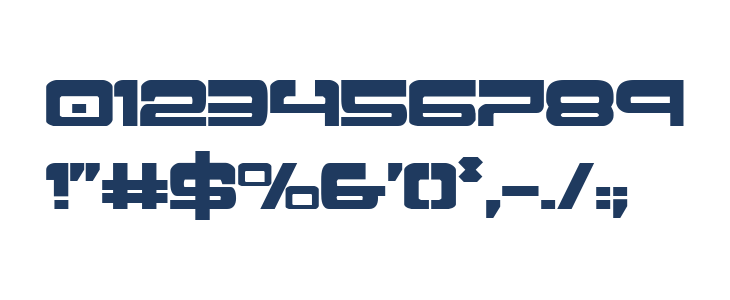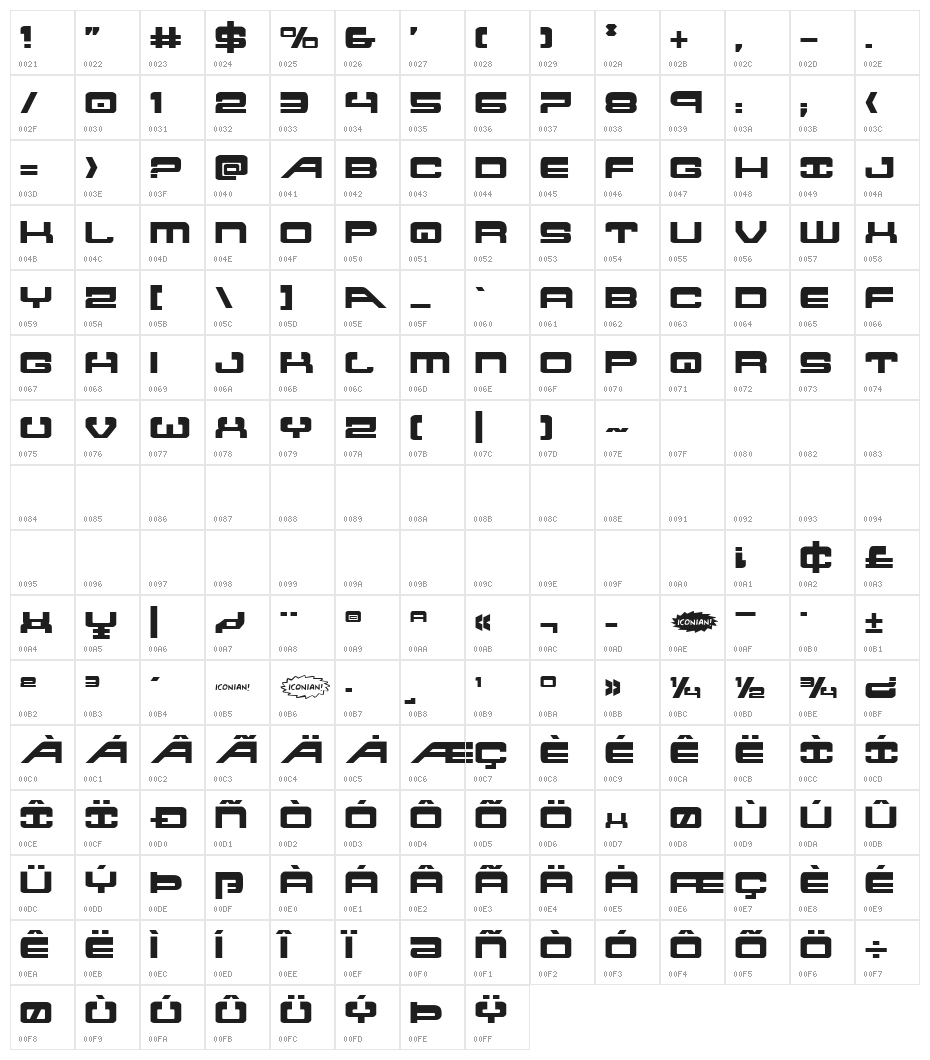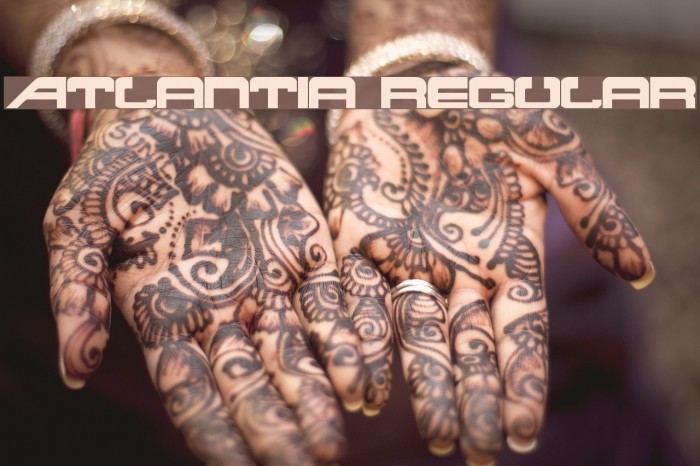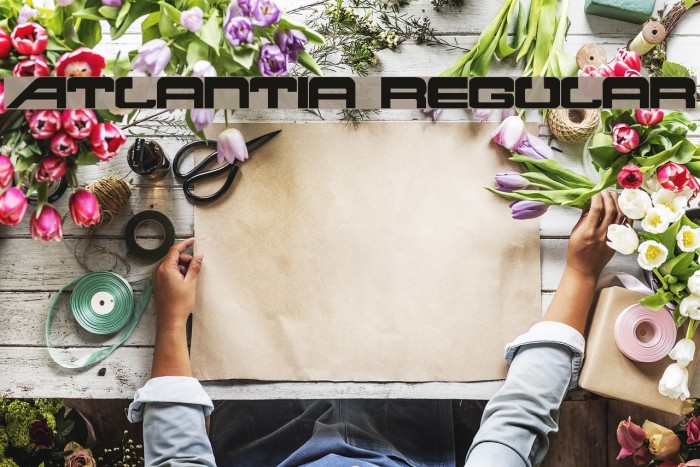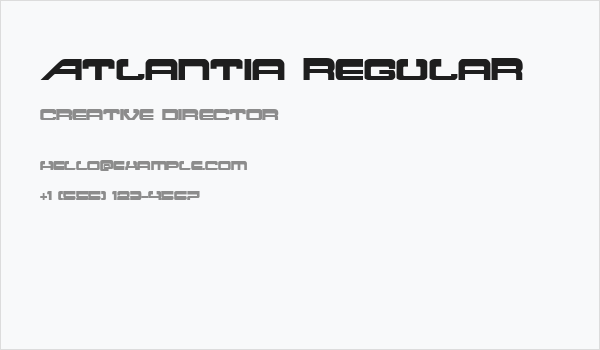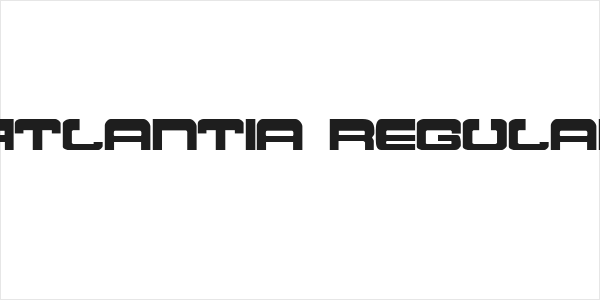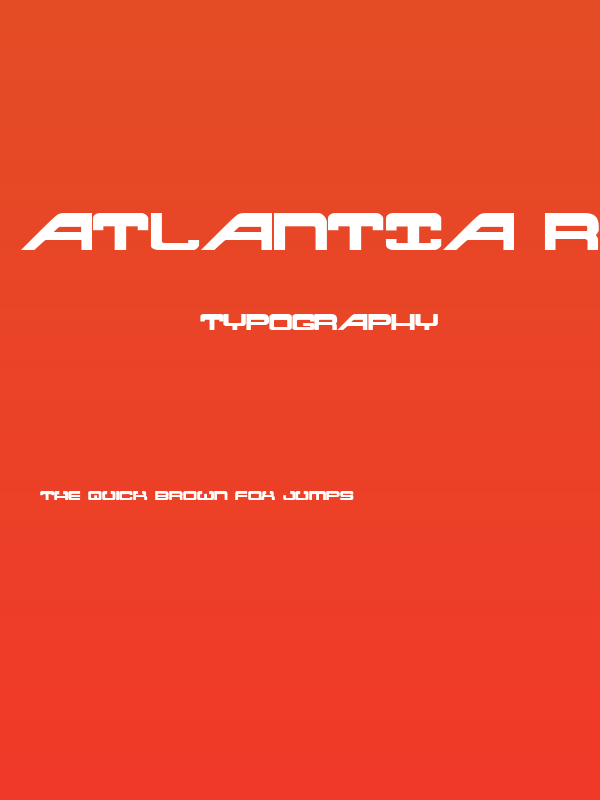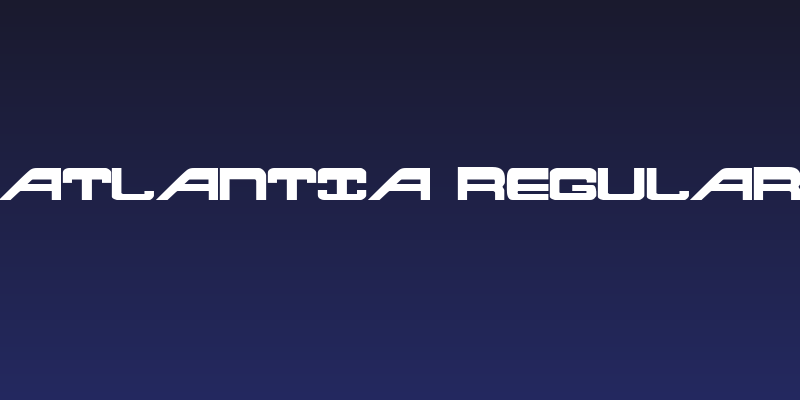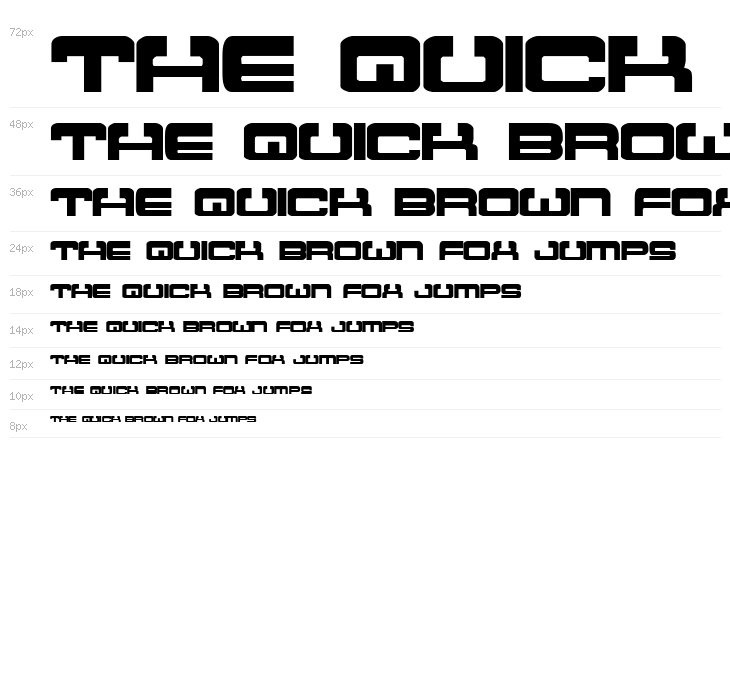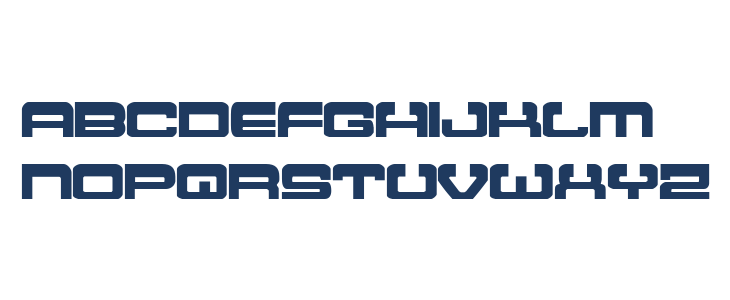
Atlantia Regular Font
Atlantia Regular Description
This font features a futuristic and geometric design, characterized by its bold and angular letterforms. The uppercase and lowercase letters maintain a consistent width, creating a uniform appearance. The characters are crafted with sharp edges and a distinct block-like structure, giving it a modern and tech-inspired look. The numbers and special characters follow the same design principles, ensuring a cohesive style throughout. The font's unique aesthetic makes it suitable for projects that require a contemporary and innovative feel.
| Proposed Projects | Ideal for technology branding, sci-fi themed designs, video game interfaces, and modern advertising. |